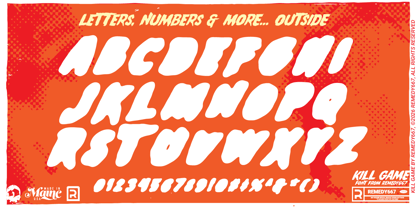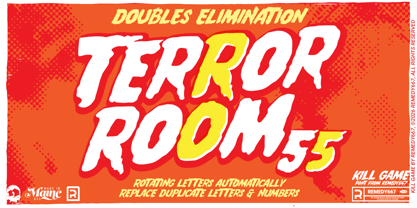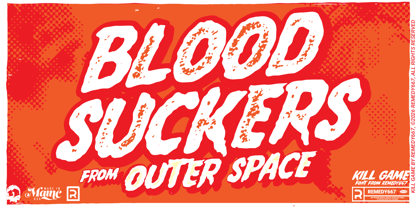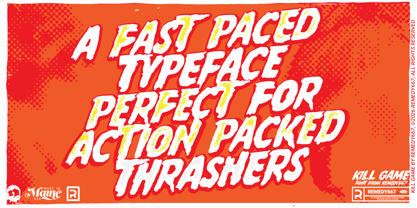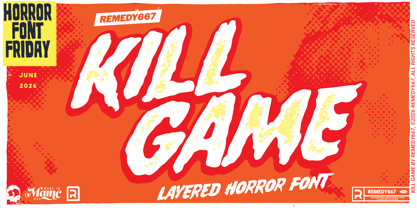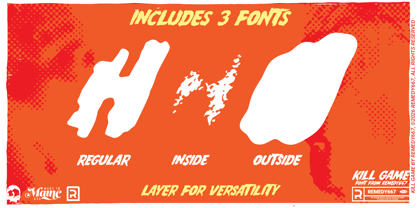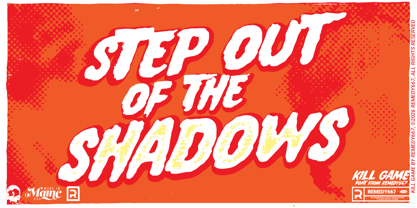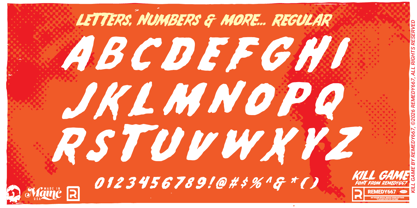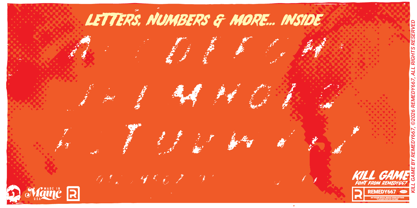
Kill Game 667
by Remedy667
The Kill Game 667 Font Family was designed by Nick Polifroni and published by Remedy667. Kill Game 667 contains 3 styles and family package options. More about this family
Kill Game storms onto the scene inspired by the lettering from the press book for The Name of the Game is Kill (1968). Bold, brash, and impossible to ignore, Kill Game delivers the kind of visual punch that lures unsuspecting moviegoers into theaters and drive-ins like a siren song.
Designed for fast-impact titles, punchy subheadings, and attention-grabbing graphics… Kill Game thrives where beige goes to die. Its rugged forms demand to be noticed, while layered styles and rotating characters add depth and variety that keep your headlines feeling fresh.
Features
• Inspired by vintage 1960s lettering
• Three layerable font styles for dramatic custom effects
• Rotating characters for natural variation and visual interest
• Multilingual support for worldwide mayhem
Designers: Nick Polifroni
Foundry: Remedy667